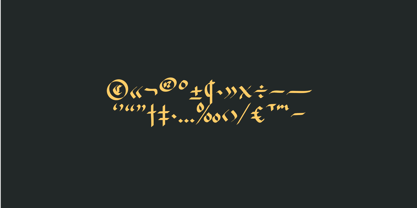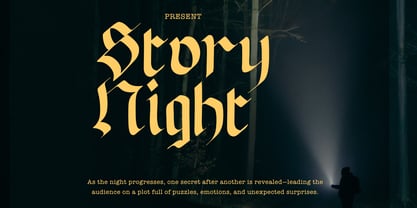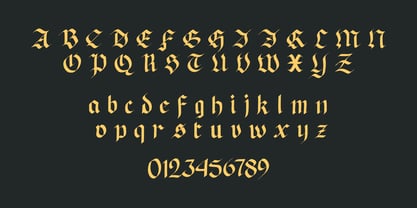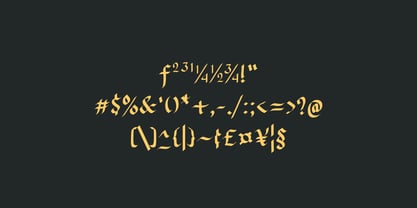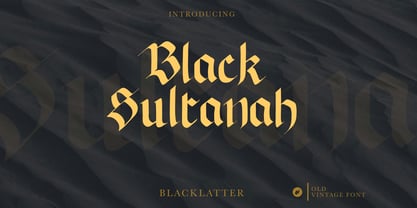
Black Sultanah
by WAP Type
The Black Sultanah Font Family was designed by Wahyu Aji Prasetyo and published by WAP Type. Black Sultanah contains 1 styles. More about this family
Black Sultanah fonts, also known as Gothic or Old English typefaces, are characterized by their dramatic, ornate letterforms with thick, angular strokes and elaborate decorative elements. These fonts originated in medieval European manuscripts and are often associated with formal, traditional, and ceremonial designs. They convey a sense of history, authority, and sophistication, making them popular choices for certificates, logos, and decorative headings where a classical or dramatic impact is desired.
Designers: Wahyu Aji Prasetyo
Foundry: WAP Type